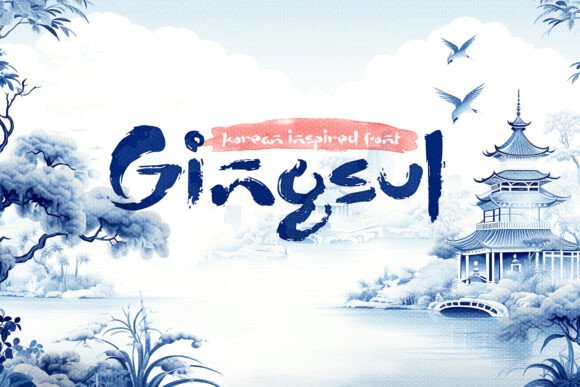
Gingsul Font: A Traditional Korean Brush-Style Font for Authentic Asian-Themed Designs
In the world of typography, fonts play a crucial role in conveying the tone and aesthetic of a design. For projects that require an Asian touch, particularly those inspired by Korean culture, a font that embodies the traditional and authentic feel is essential. This is where the Gingsul Font comes into play. Handmade with love and inspired by traditional Korean writings, Gingsul is a brush-style font that can elevate any Asian-themed project with its unique and authentic charm.
The Inspiration Behind Gingsul Font
Gingsul Font draws its inspiration from the rich and vibrant history of Korean calligraphy. Korean writing, known as “Hanji,” has a long and storied past, with its origins dating back to the 14th century. The traditional Korean brush-style writing is characterized by its fluid strokes, elegant lines, and a deep connection to the country’s cultural heritage. Gingsul Font aims to capture this essence and bring it into modern design applications.
The creator of Gingsul Font meticulously studied traditional Korean calligraphy, understanding the techniques, tools, and materials used by Korean calligraphers. The font is a result of this dedication and passion, offering a digital interpretation of the classic brush-style writing that is both nostalgic and contemporary.
Characteristics of Gingsul Font
Gingsul Font boasts several characteristics that make it an ideal choice for designers looking for an authentic Korean touch:
- Handmade with love: Each letter in the Gingsul Font is carefully crafted by hand, ensuring a personal and unique feel that is hard to replicate with machine-generated fonts.
- Brush-style: The font features the distinctive strokes and varying line widths typical of traditional brush calligraphy, giving it an organic and artistic look.
- Inspired by tradition: Gingsul Font is deeply rooted in Korean calligraphic traditions, making it perfect for designs that require an authentic Asian aesthetic.
- Versatile: Despite its traditional inspiration, Gingsul Font is versatile and can be used in a variety of design contexts, from digital media to print.
Use Cases for Gingsul Font
The Gingsul Font is incredibly versatile and can be applied to numerous design projects that benefit from a traditional Korean aesthetic. Here are some use cases:
- Branding and Logo Design: For businesses looking to emphasize their connection to Korean culture or heritage, Gingsul Font can add a meaningful and distinctive element to their branding.
- Packaging Design: Products with a Korean theme or those marketed towards Korean consumers can benefit from the authentic touch Gingsul Font provides.
- Advertising and Marketing Materials: Campaigns aiming to target Korean-speaking audiences or to evoke a sense of Korean tradition can utilize Gingsul Font for an immediate cultural connection.
- Digital Content Creation: From YouTube videos to social media posts, Gingsul Font can add a unique and recognizable visual element to digital content, making it stand out.
- Web Design: Websites with a focus on Korean culture, cuisine, history, or tourism can use Gingsul Font to create an immersive and authentic user experience.
Tips for Using Gingsul Font Effectively
To maximize the impact of Gingsul Font in your designs, consider the following tips:
- Combine with Images: Pairing Gingsul Font with relevant images or illustrations can enhance its visual appeal and reinforce the message.
- Consider Contrast: Ensure that the font color contrasts well with the background to maintain readability and aesthetic balance.
- Use in Moderation: While Gingsul Font is beautiful, it’s best used in moderation. Overuse can dilute its impact and make designs look cluttered.
- Experiment with Sizes: Don’t be afraid to experiment with different font sizes to create visual hierarchy and emphasize certain parts of your design.
Gingsul Font is more than just a typeface; it’s a bridge between tradition and modernity, offering designers a unique opportunity to infuse their work with the elegance and authenticity of Korean calligraphy. Whether you’re working on a branding project, website design, or marketing materials, Gingsul Font provides a distinctive and culturally rich element that can elevate your designs and connect with your audience on a deeper level.
Incorporating Gingsul Font into your design projects not only adds an aesthetic appeal but also shows respect and appreciation for Korean culture. As designers continue to seek ways to create meaningful and engaging content, fonts like Gingsul offer a valuable resource for those aiming to produce work that resonates with diverse audiences.
With its handmade quality, traditional inspiration, and versatile application, Gingsul Font stands out as a remarkable tool in the world of typography and design. It invites designers to explore new creative horizons and to embrace the beauty of Korean calligraphy in their work.